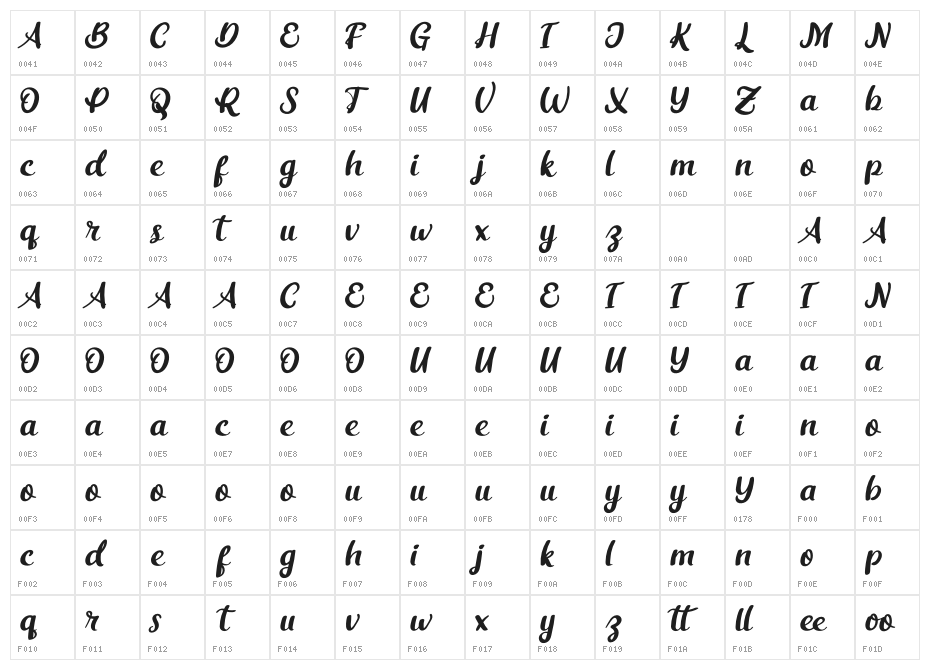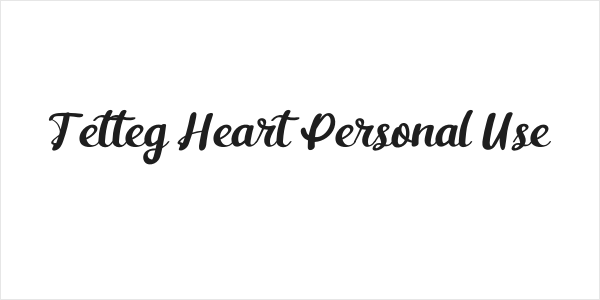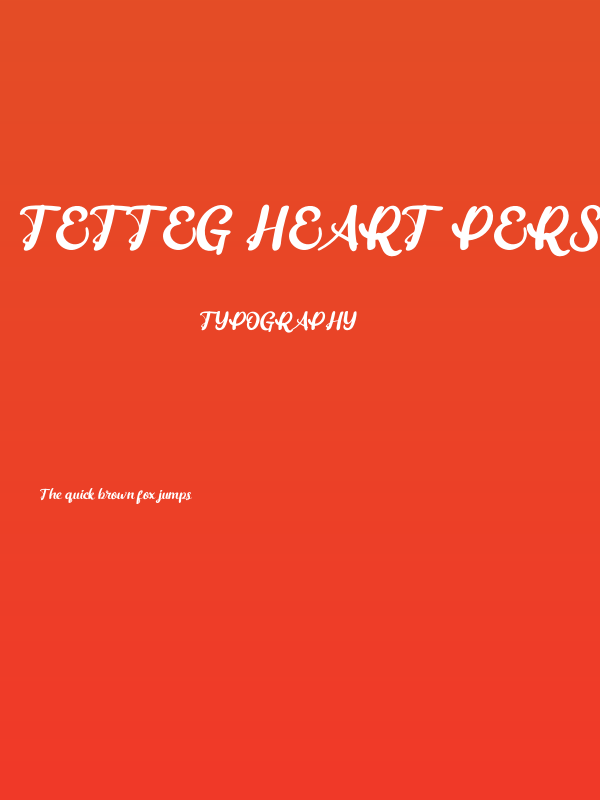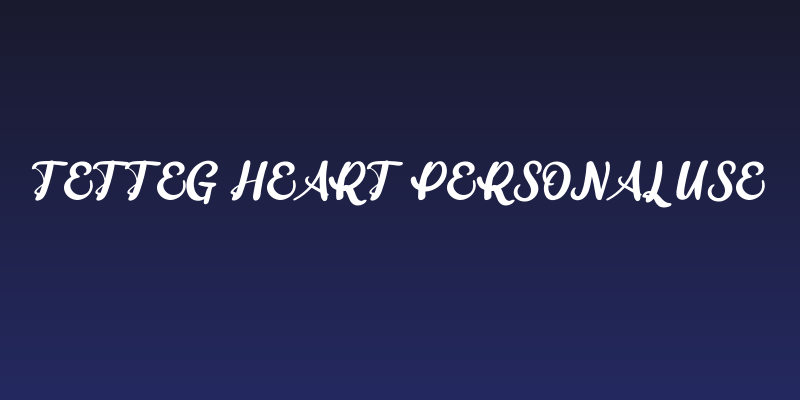
Tetteg Heart Personal Use Font
Tetteg Heart Personal Use Description
This font features a bold and flowing script style, characterized by its elegant and cursive letterforms. The uppercase letters exhibit a graceful, sweeping motion with a slight slant, while the lowercase letters maintain a consistent fluidity, enhancing the overall aesthetic. The strokes are thick and uniform, providing a strong visual impact. The font's design is reminiscent of traditional calligraphy, yet it maintains a modern touch with its clean lines and smooth curves. The absence of serifs adds to its contemporary appeal, making it suitable for various creative applications.
| Proposed Projects | Ideal for wedding invitations, greeting cards, logos, and branding materials that require a touch of elegance and sophistication. |